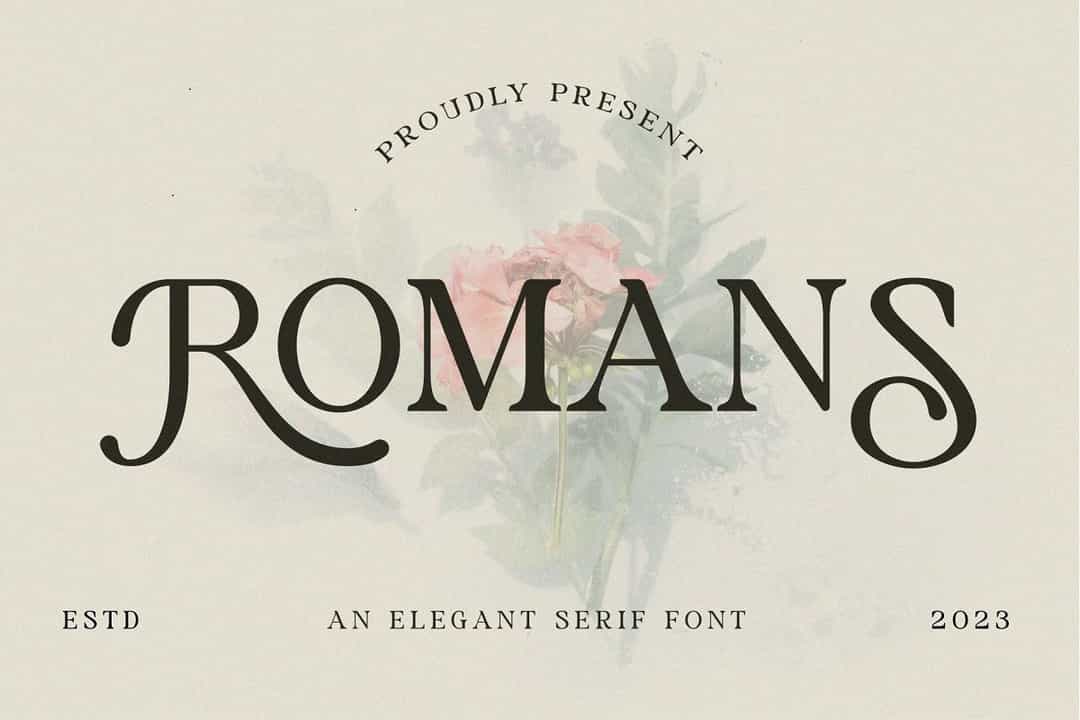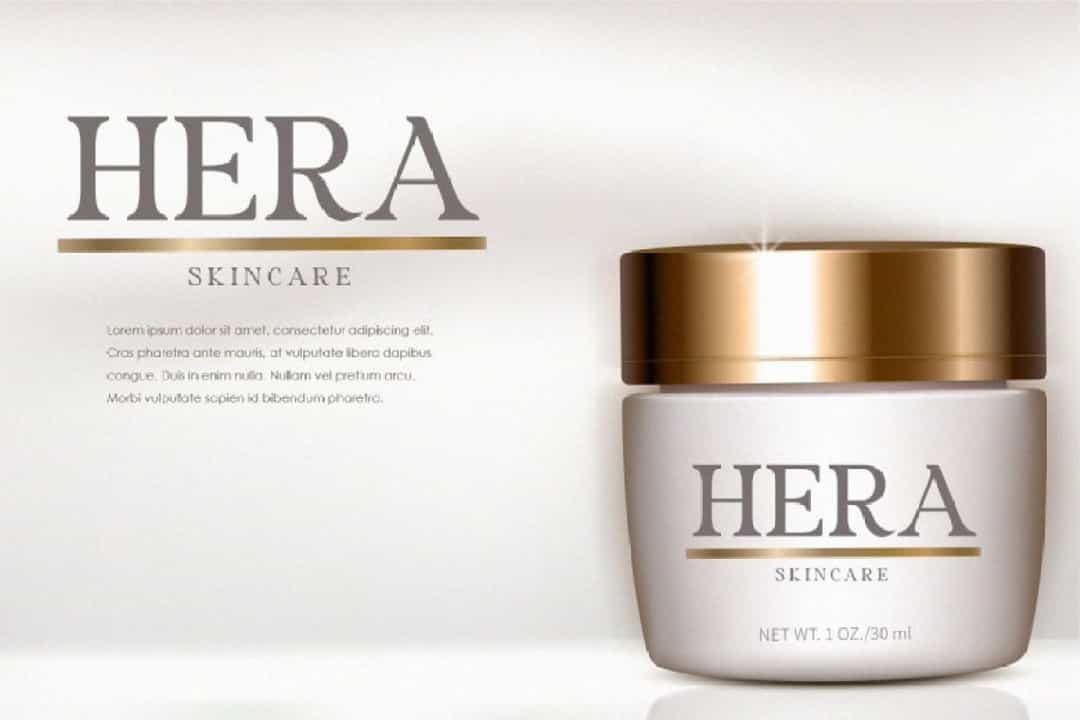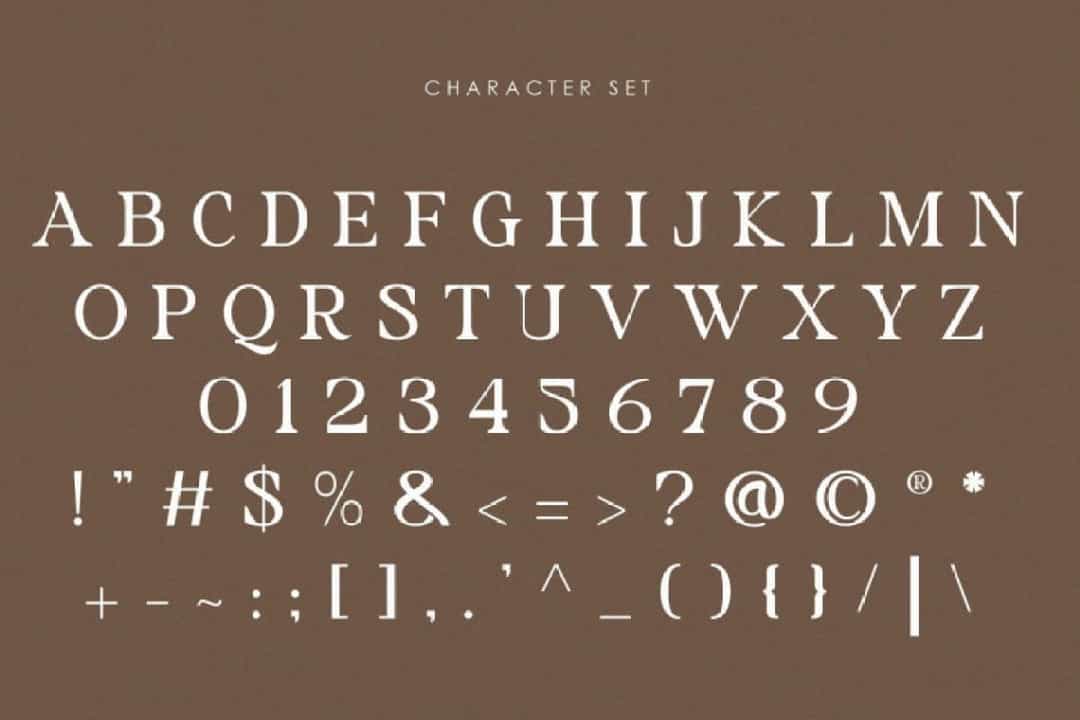
ROMANS can be best described as a sophisticated and contemporary serif font that exudes sophistication and modern elegance. CAKELAN brings its minimalist style into designs for websites, logos, branding identities, social media quotes, wedding stationery and many other purposes! It makes a lasting impression!